Great graphic design is powered by great font selection. But picking great fonts is a challenge most people. Luckily, Canva has made adding great fonts to your designs much easier. In this tutorial, our team of design experts will cover the best Filipino Fonts in Canva.
What Are Filipino Fonts?
Filipino fonts, also known as Baybayin fonts, are unique in their design and have several distinct characteristics. Some of these characteristics include:
- Angular shapes: Baybayin scripts are made up of angular shapes that form letters, which are similar to the shapes of ancient Arabic or Sanskrit scripts.
- Connected letters: Baybayin letters are usually connected to each other, creating a flowing and continuous script.
- Diacritical marks: Baybayin scripts use diacritical marks to indicate vowel sounds, similar to other Southeast Asian scripts.
- Horizontal lines: Baybayin scripts contain several horizontal lines that help distinguish between letters and words.
- Symmetrical shapes: Baybayin letters are often symmetrical, with similar shapes on both sides of the vertical axis.
- Rounded edges: Some Baybayin scripts have rounded edges, which gives them a softer appearance compared to other Southeast Asian scripts.
- Decorative elements: Some Baybayin fonts have decorative elements, such as dots or curls, that add complexity and visual interest to the letters.
Best Fonts in Canva for Filipino Style Design
1. Matatas One
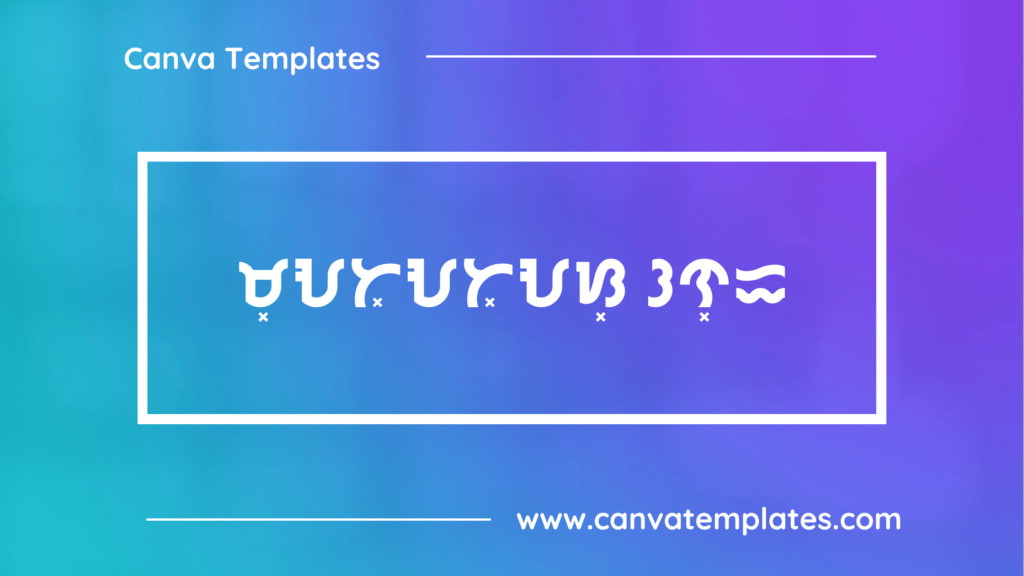
MATATAS ONE is a free bayabyin typeface. Playing as a sequel to Malibata Neue, this typeface has a modern, geometric design, while following the baybayin writing system more fluently and with ease, compared to the previous fonts. This font is powered by ligatures for more accuracy in switching from Filipino Alphabet to Baybayin.
2. Anahaw
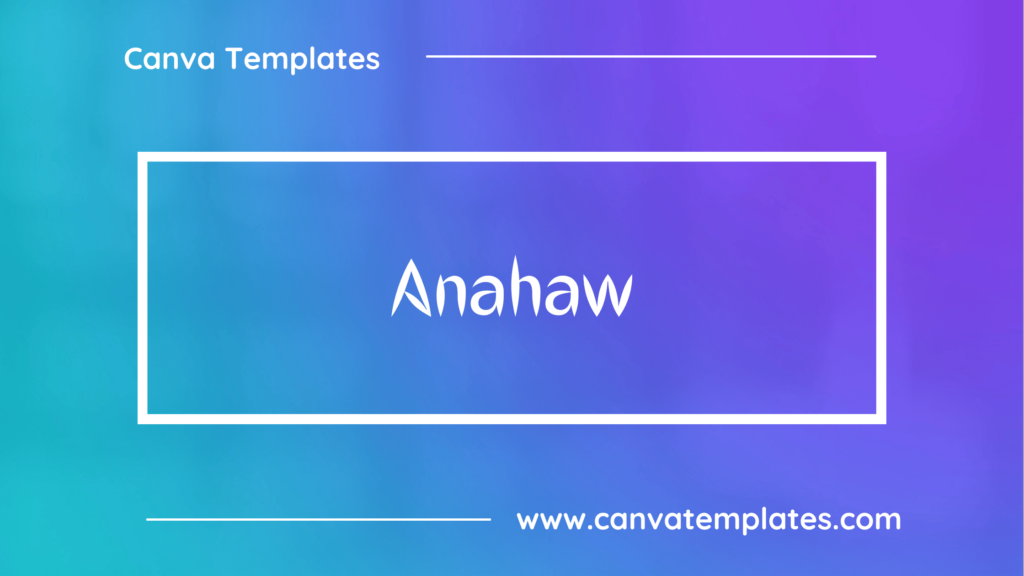
Anahaw is another new display typeface inspired by the unofficial Philippine National Leaf—the Anahaw. The leaf has been used as pambalot (food wrapper) for tikoy, or as a makeshift lunchbox. It has been made into an Abaniko (fan), which is very beautiful and a work of art
3. Kundiman
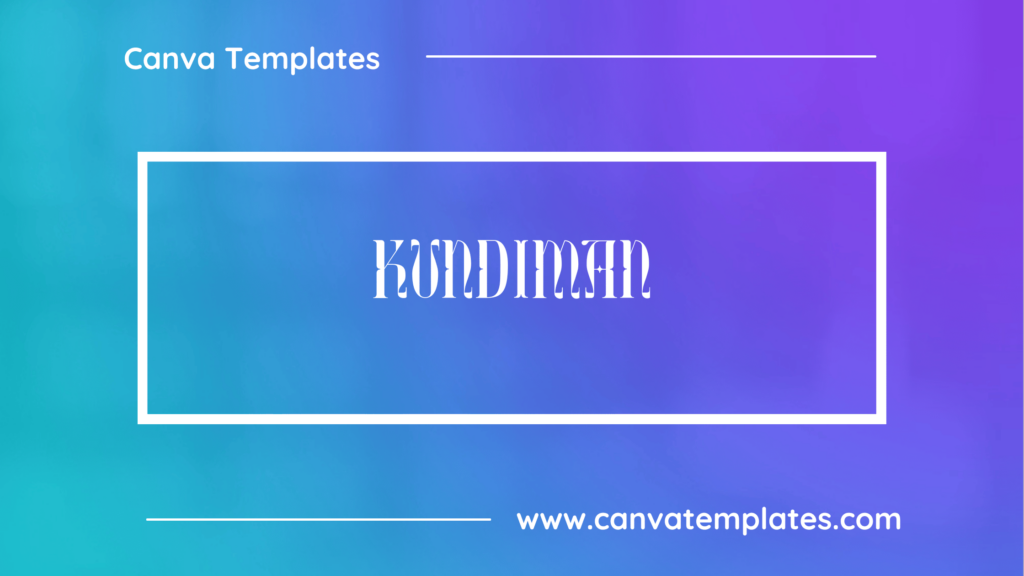
The Kundiman is a traditional means of serenade in the Philippines. Imbued with dramatic intervals and a flowing rhythmic melody, Kundiman love songs are riddled with passion, and as such became our source of inspiration in creating our custom font “Kundiman Display.”
4. Cubao Narrow
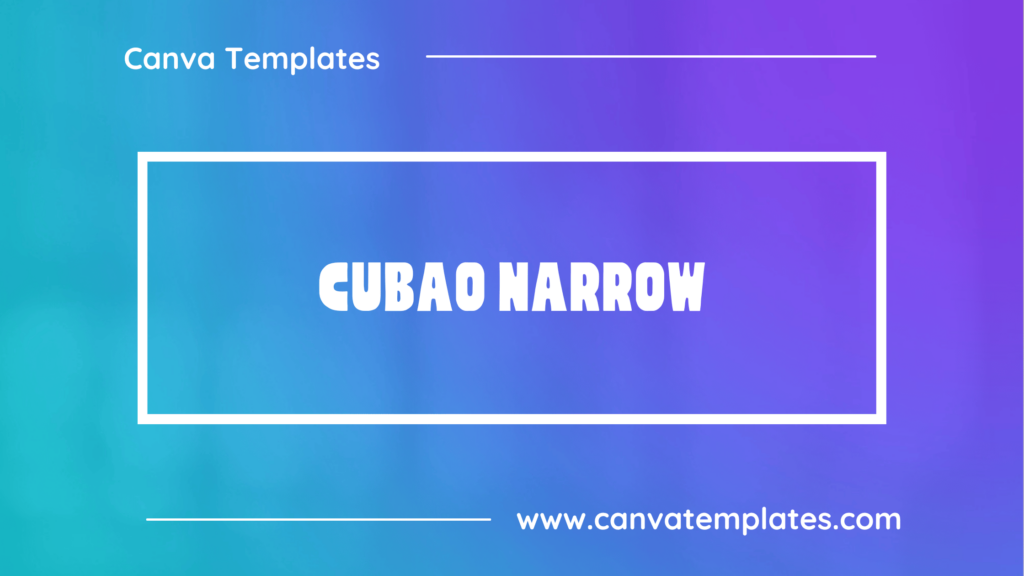
Cubao Font is a Display Typeface also dedicated to Filipino Sign makers, Jeepney drivers, and the daily commuters of Metro Manila and anywhere in the Philippines. Like the previously published typeface ‘Quiapo Free’, Cubao Free was inspired by the signboards hung on Jeepneys, SUVs, Buses, and other transport vehicles within and outside the Metro.
5. Paalalabas Condensed
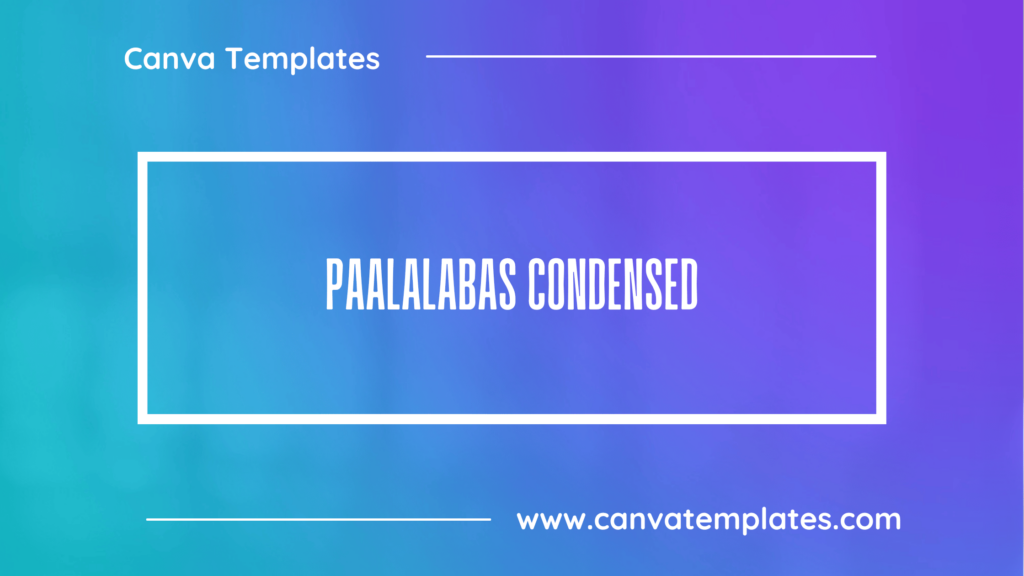
Paalalabas Condensed is the Condensed family, which is part of the superfamily along with Normal, Semi Condensed, and Extra Condensed, each with 9 weights.
6. Belina
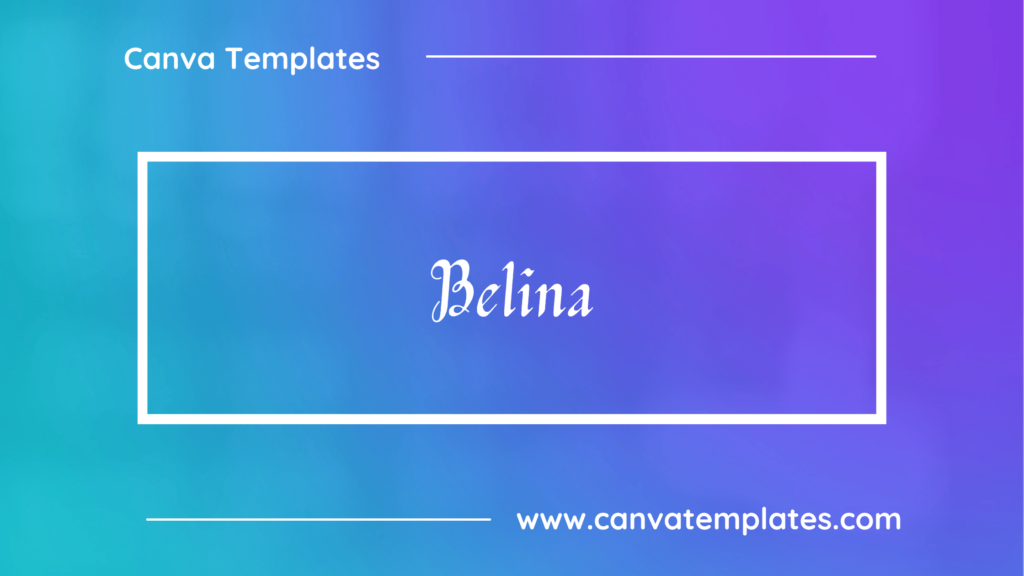
Belina is a calligraphic script display font that may be used for titles, logos, headers, and stylized text with a dainty painterly feel.
7. Maragsa
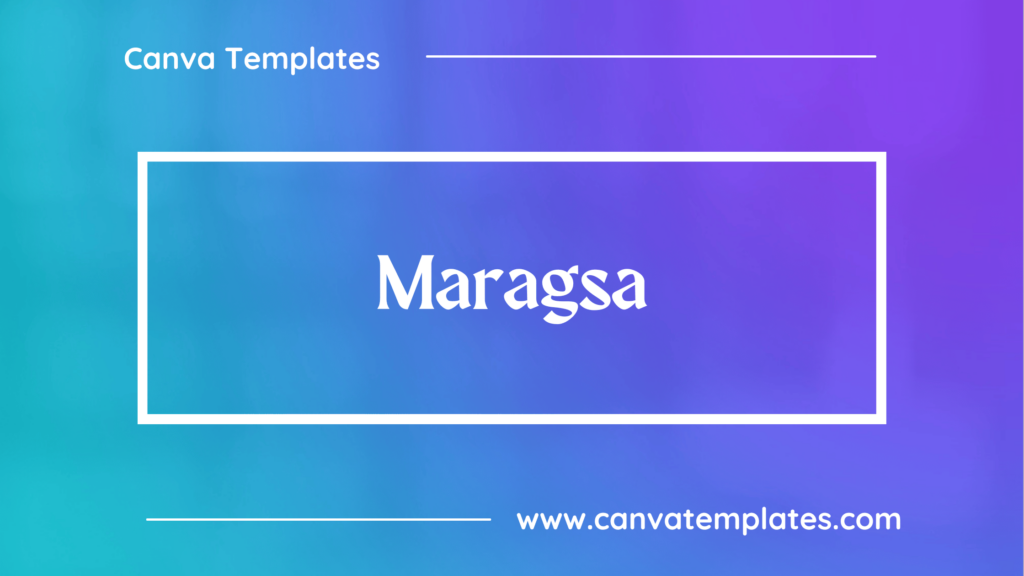
Maragsâ Serif Font is a modern bold serif typeface called Weiss roman. Its form to one of the accent marks used as a guide to the correct pronunciation of Filipino words—the pakupyâ accent—whose tapered tips heralded the sharp edges, hastily-flowing strokes, and abrupt cuts in the characters, similar to the manner words with the stress should be spoken.
8. Zenaida
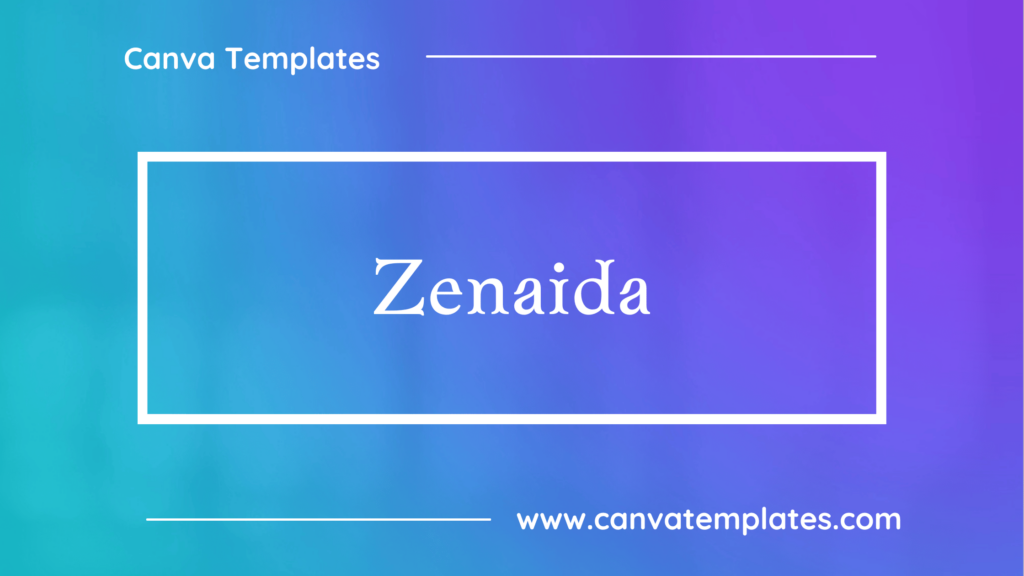
Zenaida is a unique and versatile display serif typeface with organic features with 4 different styles to choose from.
9. Bantayog Light
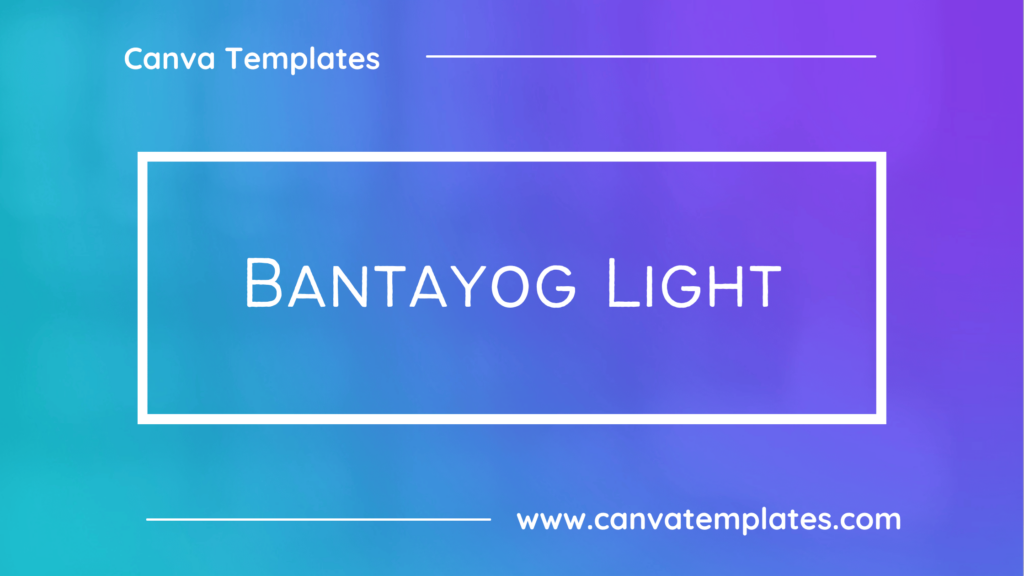
Bantayog LightBantayog is a rough, all-caps, sans-serif typeface based on the characters repainted over the worn-out, cast iron text about significant events in the past and the lives of prominent national figures narrated on Philippine historical markers.
10. Batangas
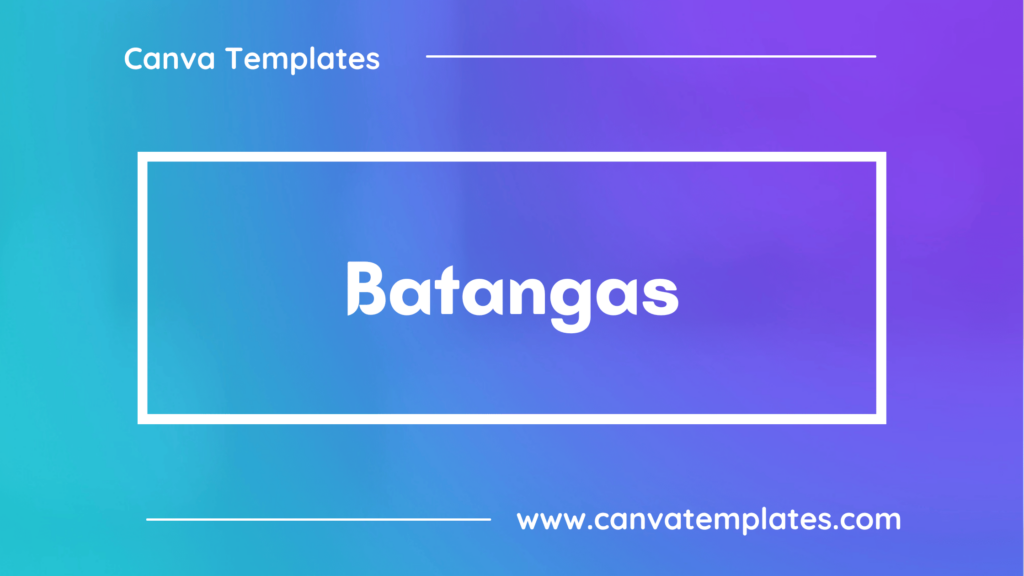
Batangas Sans Serif is a bold sans-serif display font manufactured by Hanken Design Co. Bringing a strong yet elegant atmosphere with a modern style. Batangas typeface was inspired by the strong character of the people of Batangas (Batangueños). This is evident in their culture, traditions, and iconic symbols.